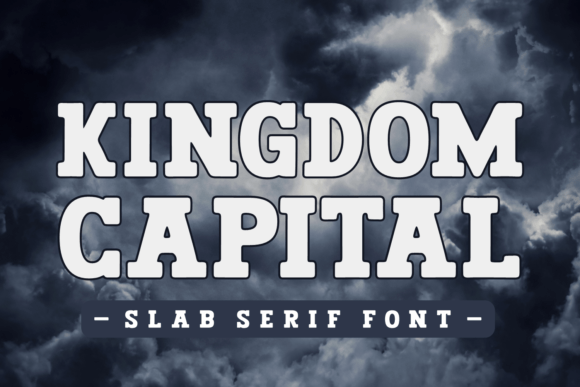
Introducing the Kingdom Capital Font, the ultimate choice for those seeking the perfect slab serif font to elevate their design projects. Created by Jasa from 7NTypes, this font is specifically engineered to captivate and leave a lasting impression on your audience.
With its robust and bold aesthetic, Kingdom Capital demands attention and effortlessly highlights any project it is used in. Whether you're designing sports-related graphics, team jerseys, movie posters, or even book covers, this font will add a vibrant and powerful touch to your creations.
Imagine the impact of using Kingdom Capital in your sports team logo or league documenter. It will instantly evoke a sense of strength, determination, and professionalism, setting your team apart from the competition. Additionally, this font is perfect for creating eye-catching headlines, titles, and posters that command attention and generate excitement.
But the versatility of Kingdom Capital doesn't stop there. Its sleek and commanding look also makes it an ideal choice for film projects, adding a touch of elegance and sophistication to your movie titles and credits. Let this font transport your viewers into the captivating world of your story.
No matter the project, Kingdom Capital has got you covered. Its extensive range of applications ensures that you can use it for various design endeavors, from logos to game graphics. Its adaptability and ability to enhance any design make it the go-to font for designers and creatives alike.